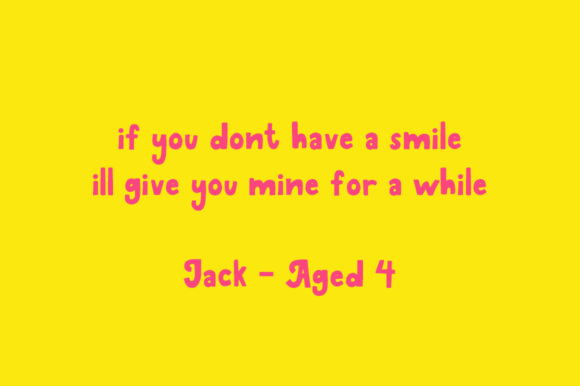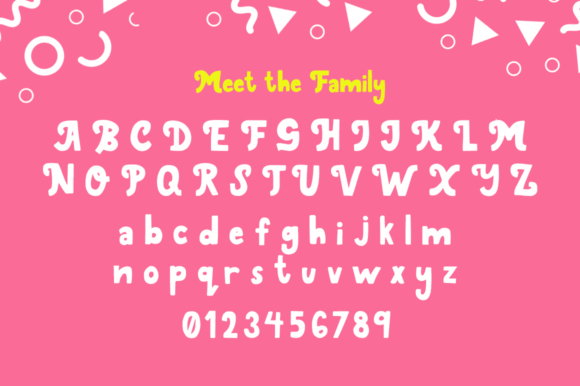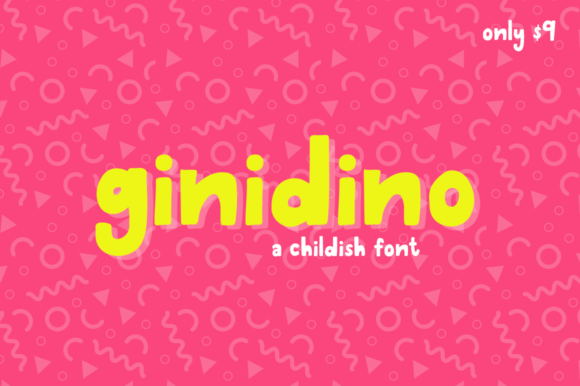
Ginidino Font: The Perfect Typeface for Child-Related Projects
Are you a designer or crafter looking for a fun and quirky font to add a touch of personality to your child-related projects? Look no further than the Ginidino Font! This super cute typeface is perfect for anyone who wants to create engaging and playful designs that kids will love.
What is Ginidino Font?
The Ginidino Font is a child-themed typeface that is designed to be super fun and quirky. With its playful and energetic vibe, this font is perfect for projects that require a youthful and lively feel. Whether you’re working on a children’s book, a kids’ party invitation, or a craft project, the Ginidino Font is sure to add a touch of whimsy and delight.
Key Features of Ginidino Font
So, what makes the Ginidino Font so special? Here are just a few of its key features:
- Child-Themed: As its name suggests, the Ginidino Font is specifically designed with children in mind. Its playful and energetic vibe makes it perfect for projects that require a youthful and lively feel.
- Super Fun and Quirky: The Ginidino Font is a super fun and quirky typeface that is sure to add a touch of personality to your designs. Its unique and playful characters make it perfect for creating engaging and eye-catching designs.
Uses for Ginidino Font
So, what can you use the Ginidino Font for? The possibilities are endless! Here are just a few ideas to get you started:
- Children’s Books: The Ginidino Font is perfect for children’s books, with its playful and energetic vibe making it ideal for storybooks, picture books, and more.
- Kids’ Party Invitations: Create fun and playful kids’ party invitations with the Ginidino Font. Its quirky and child-themed design makes it perfect for birthday parties, baby showers, and more.
- Craft Projects: The Ginidino Font is also great for craft projects, such as scrapbooking, card making, and DIY gifts. Its unique and playful characters make it perfect for adding a personal touch to your crafts.
- Signs and Posters: Use the Ginidino Font to create eye-catching signs and posters for kids’ events, such as school plays, sports games, and more.
Tips for Using Ginidino Font
Here are a few tips for using the Ginidino Font:
- Use it in Large Sizes: The Ginidino Font is perfect for large sizes, such as headlines and titles. Use it to create eye-catching designs that kids will love.
- Experiment with Colors: The Ginidino Font looks great in a variety of colors, so don’t be afraid to experiment and find the perfect hue for your design.
- Pair it with Other Fonts: The Ginidino Font pairs well with other fonts, such as sans-serif fonts and script fonts. Experiment with different pairings to find the perfect combination for your design.
In conclusion, the Ginidino Font is a super fun, quirky, and child-themed typeface that is perfect for child-related projects. With its playful and energetic vibe, this font is sure to add a touch of personality to your designs. Whether you’re a designer or crafter, the Ginidino Font is a great choice for anyone who wants to create engaging and eye-catching designs that kids will love. So why not give it a try and see what amazing designs you can create?